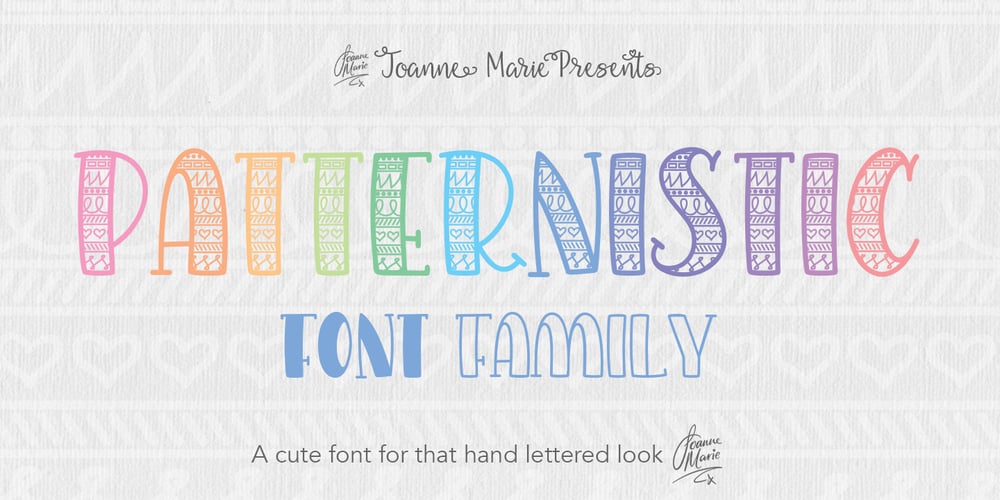
Patternistic
Patternistic font
Patternistic Font Family was designed by Joanne Hewitt and published by Joanne Marie. Patternistic contains 2 styles and family package options. Follow me on Instagram for weekly FREEBIES @joannemarie_cmPATTERNISTIC is a cute and fun, all caps font for any hand lettering style projects. There are 2 fonts included in this family and the uppercase are different to the lowercase (one is solid and one is outline). Have Fun!